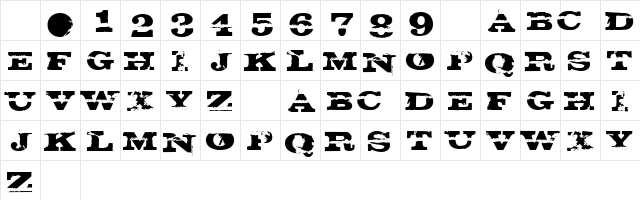
Complete gatecrasher texan glyph index. Displaying only characters natively supported by gatecrasher texan font.
gatecrasher is a composed and adaptable typeface that performs quietly and consistently across a wide range of design contexts.